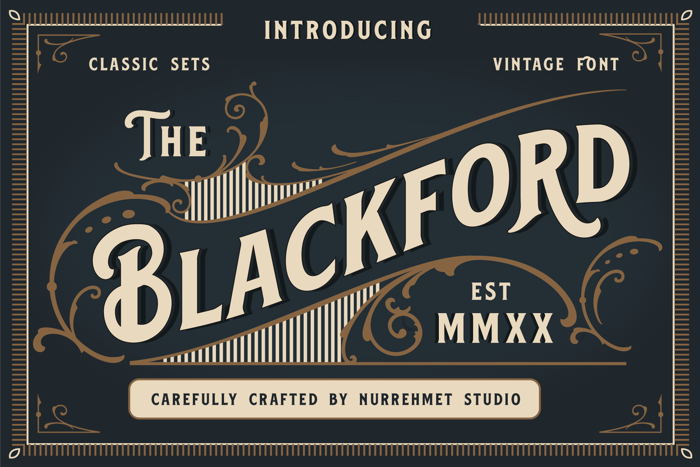
Blackford Font
Meet, Blackford a new classic vintage font inspired by old packaging and labels. This font is completely perfect match with your vintage logo design, invitation, or labels. You can also mix this font with any victorian ornaments.